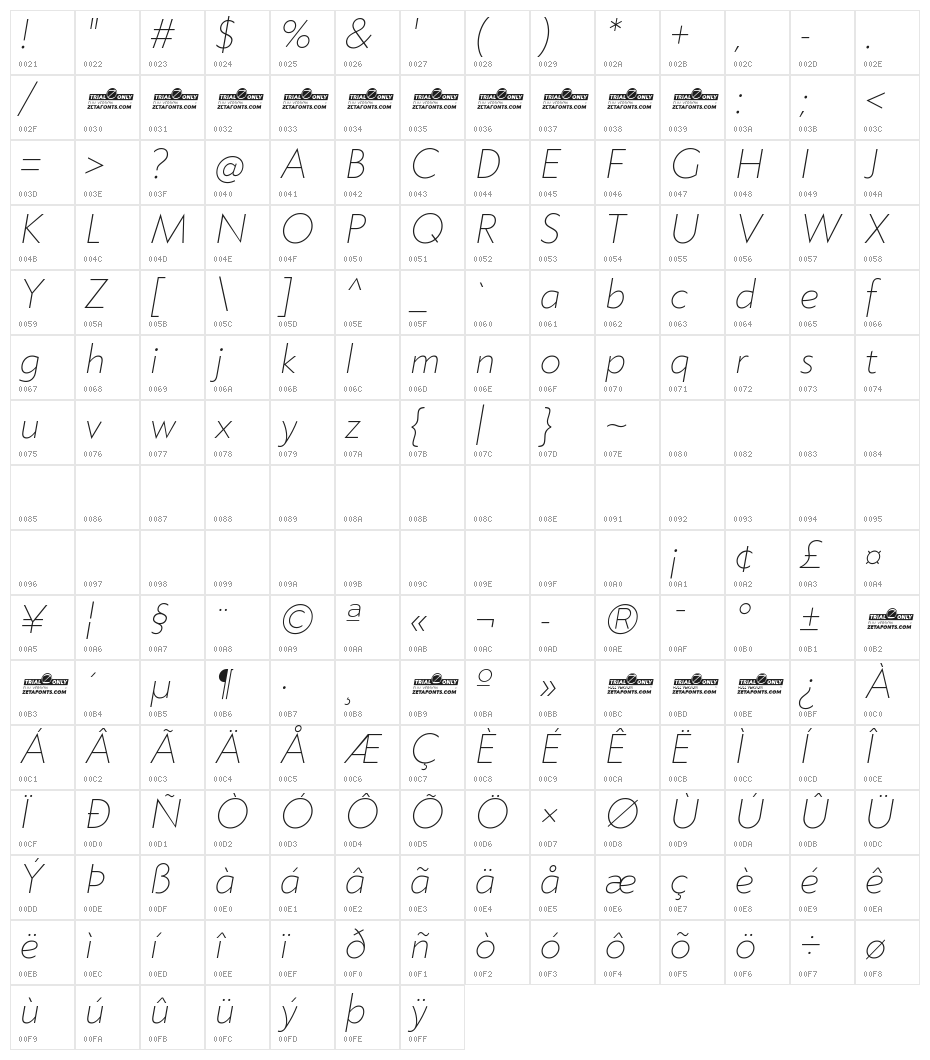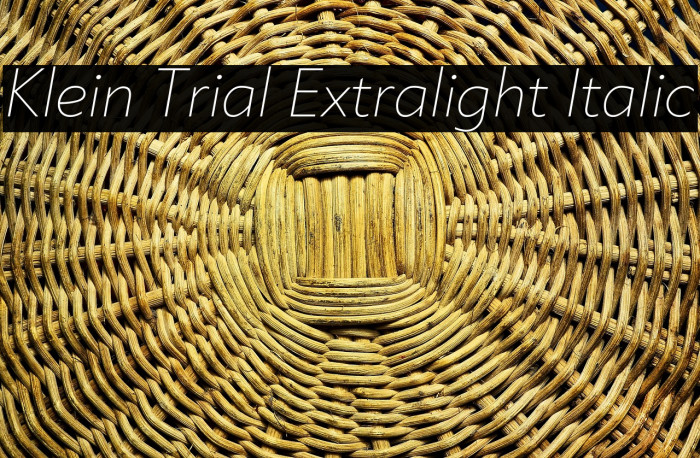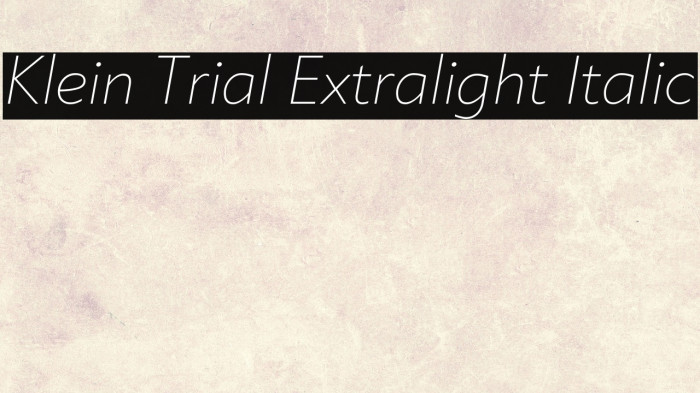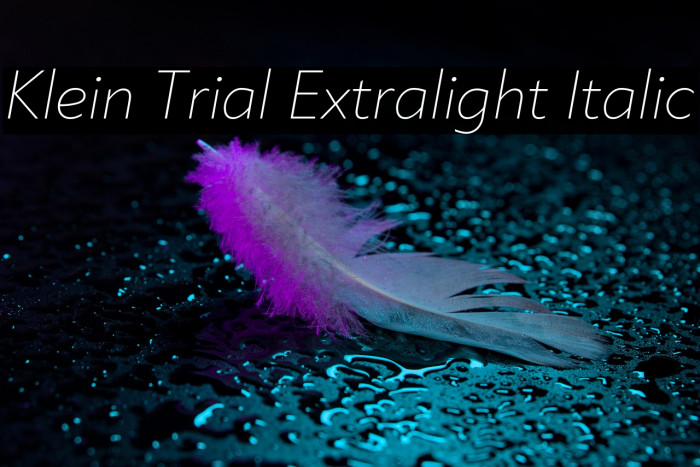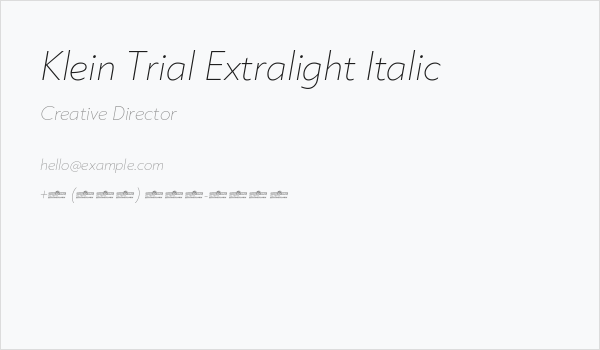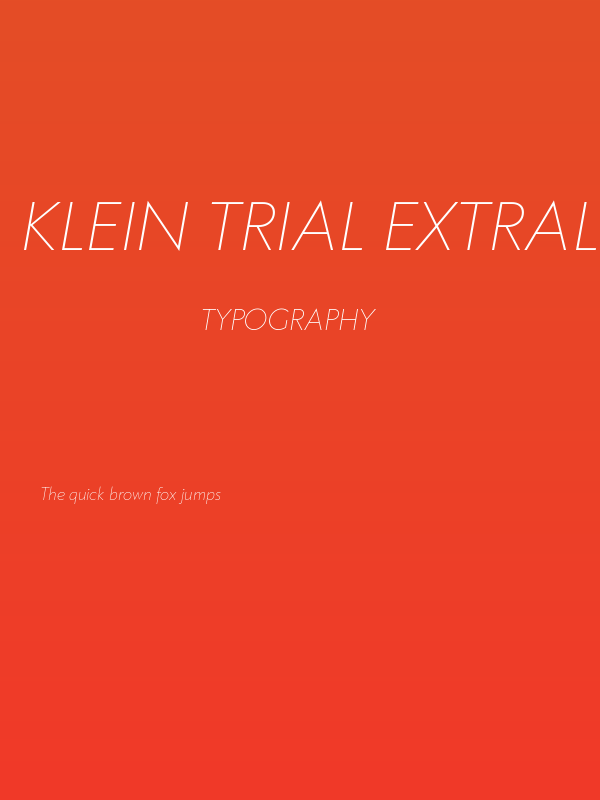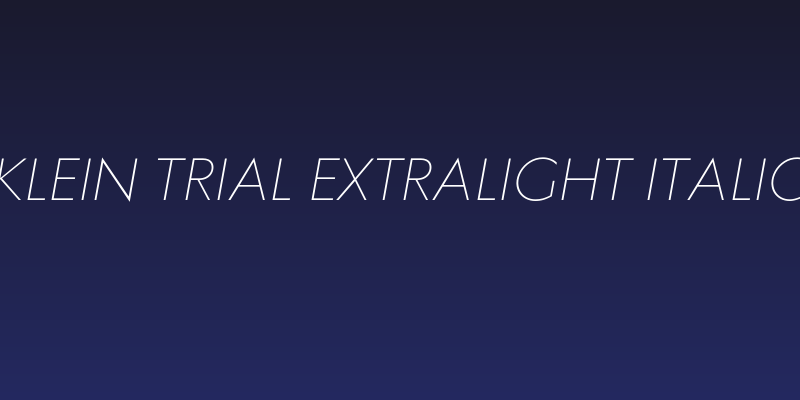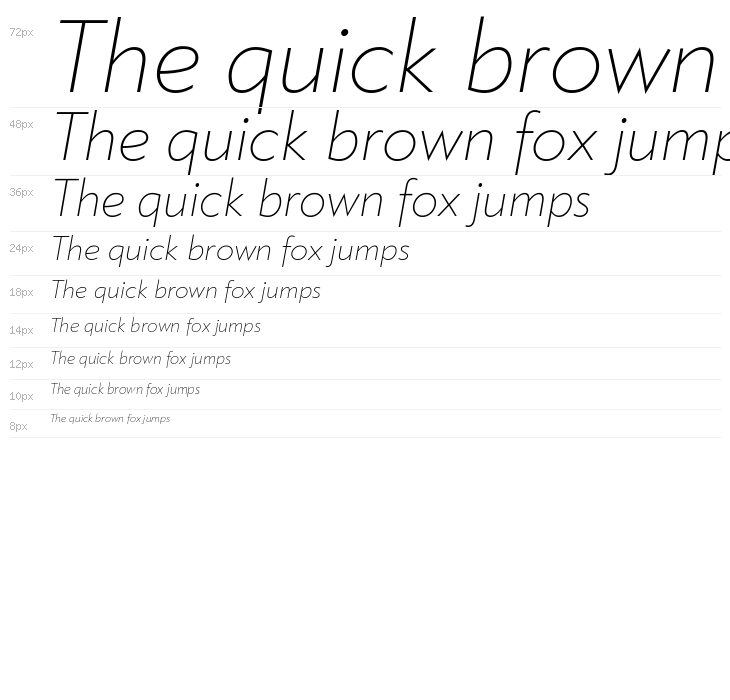
Klein Trial Extralight Italic Font
Klein Trial Extralight Italic Description
This font features a sleek and modern design with an extra-light weight and italic style. The characters are elegantly thin, providing a sophisticated and airy appearance. The italic slant adds a dynamic and fluid touch, making it suitable for contemporary and stylish applications. The uppercase and lowercase letters maintain a consistent and harmonious flow, while the numerals and special characters are crafted with precision and clarity. This font's minimalistic approach ensures readability while maintaining a distinct and refined aesthetic.
| Use Case | Headlines, Logos, Editorial design |
| Proposed Projects | Ideal for fashion magazines, luxury branding, elegant invitations, and modern web design. |